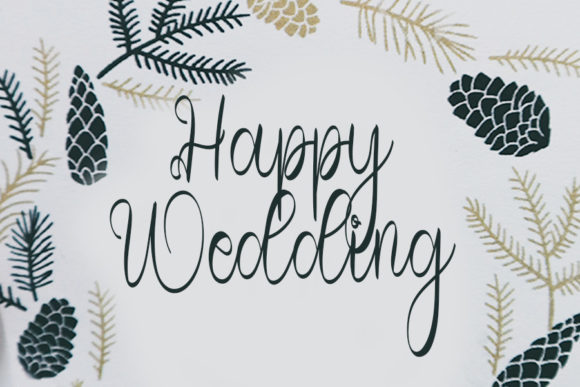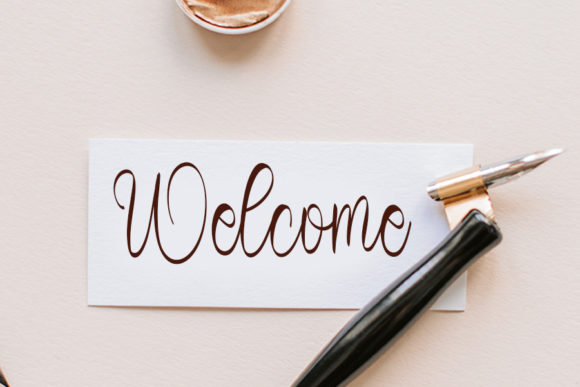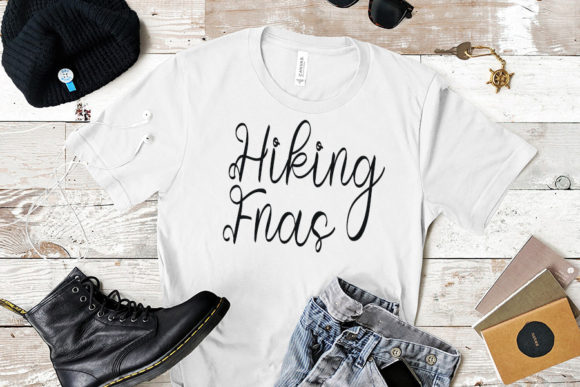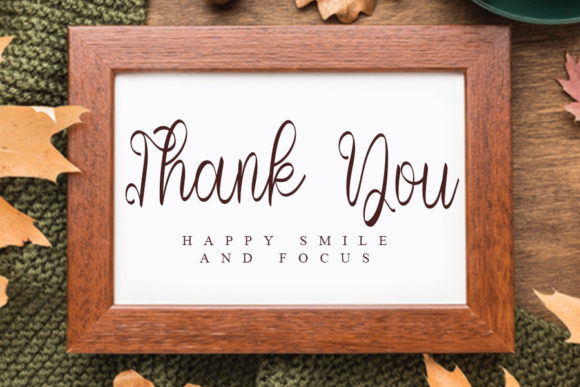
The Perfect Calligraphy for Your Next Masterpiece
As you sit down to create a beautiful wedding invitation, a stylish birthday card, or a stunning holiday greeting, you know that the right font can make all the difference. You envision elegant script, flowing lines, and a touch of sophistication. That’s where the Invitation Font comes in – a masterfully designed, handwritten font that captures the essence of classic calligraphy while feeling refreshingly modern.
This exquisite font is more than just a pretty face; it’s a valuable tool for designers seeking to elevate their projects to new heights. With its PUA encoding, you can easily access all the glyphs and swashes, giving you the freedom to create truly unique and personalized designs. Whether you’re a seasoned pro or just starting out, the Invitation Font is sure to become a trusted companion in your creative journey.
- Unique Characteristics: Invitation Font features a beautiful, elegant script with flowing connections and subtle flourishes, making it ideal for creating elegant and sophisticated designs.
Review: Invitation Font
When I first laid eyes on the Invitation Font, I was immediately drawn to its elegant and sophisticated aesthetic ✨. The font’s flowing lines and subtle flourishes evoke a sense of luxury and refinement, making it perfect for high-end invitations, weddings, and other special events.
One of the things I love most about Invitation Font is its versatility ✨. It can be used in a variety of contexts, from formal to informal, and still manage to look polished and put-together. The font also has a wide range of weights and styles, allowing designers to mix and match to create unique and visually interesting combinations.
What Doesn’t Work
While Invitation Font is a beautiful font, I do have a few reservations ⚠️. For one, it can be a bit difficult to read at smaller font sizes, particularly for those with vision impairments. Additionally, the font’s flowing lines can sometimes make it challenging to distinguish between similar letters.
- Difficulty reading at smaller font sizes
- Challenging to distinguish between similar letters
Overall, I think the Invitation Font is a solid choice for designers looking to create high-end, sophisticated designs ✨. While it may have some limitations, its beauty and versatility make it well worth considering for a variety of projects.
For the most visually appealing results, pair Invitation Font with elegant graphics and pastel colors. Common use cases include:
– Wedding invitations
– Baby shower invitations
– Birthday party invitations
– Announcements and greeting cards